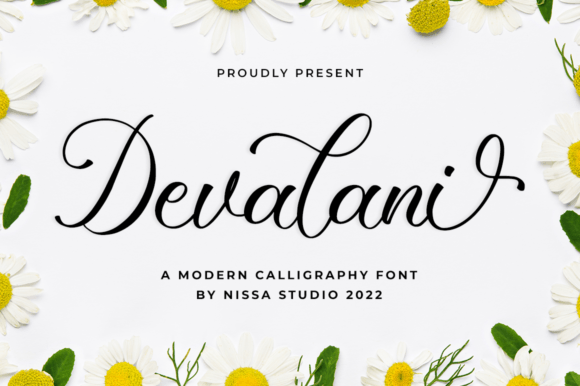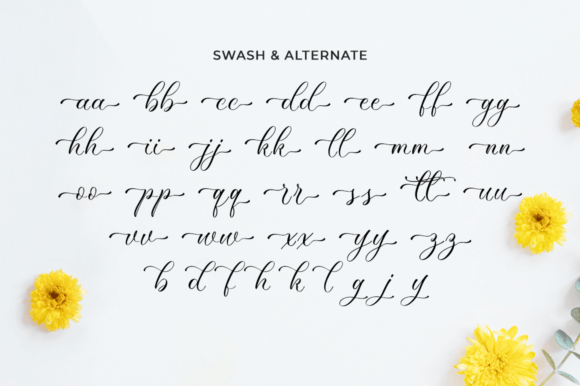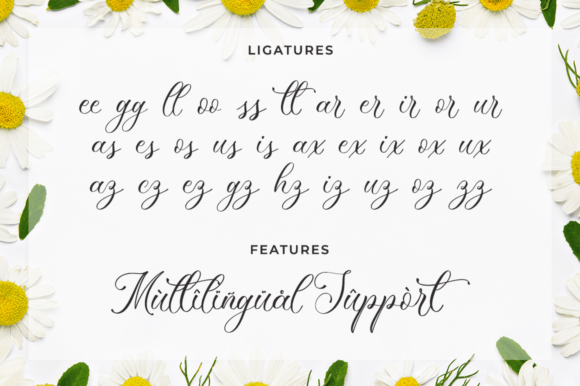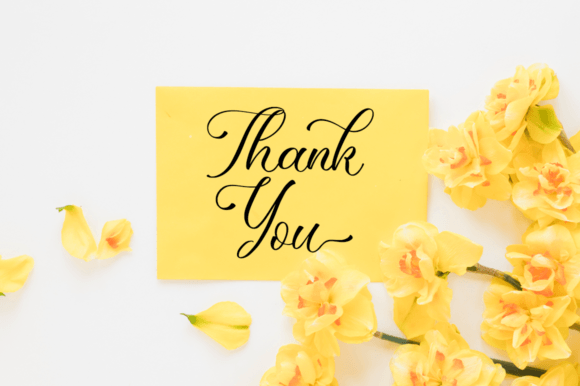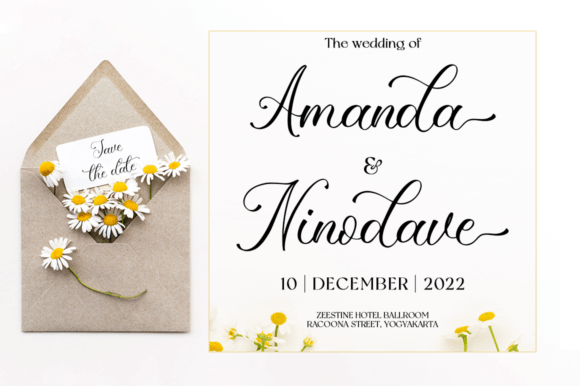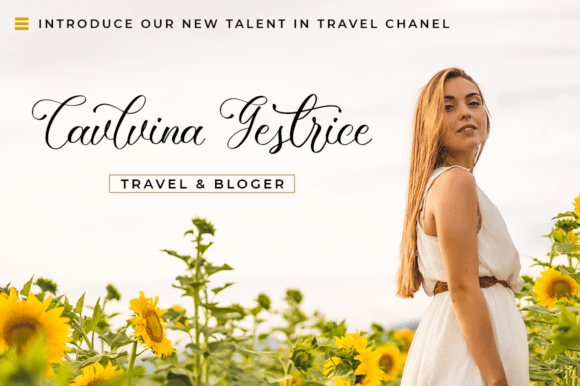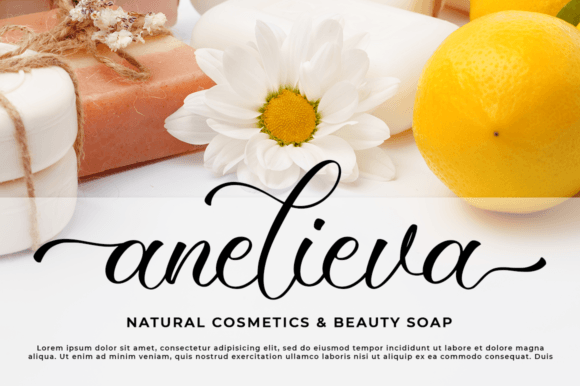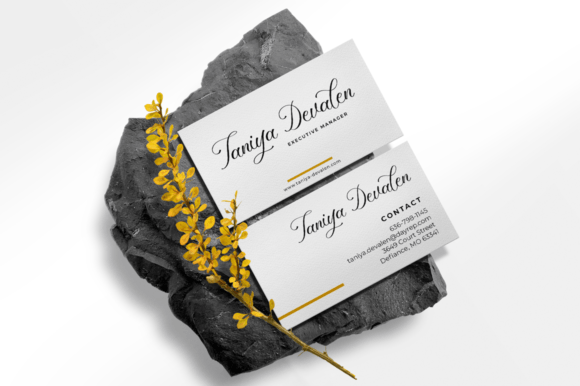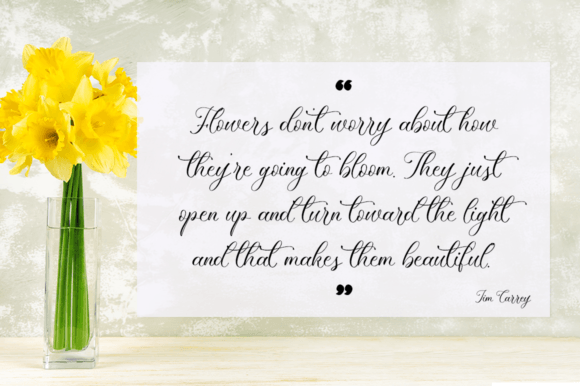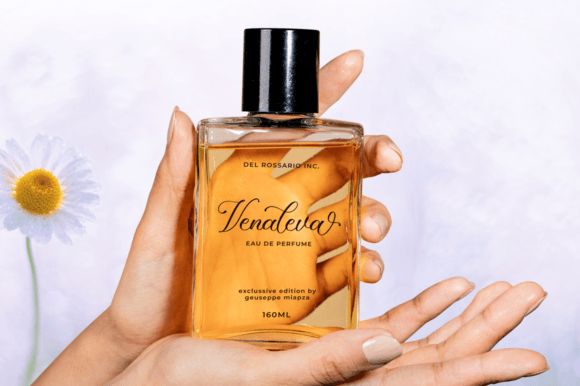
Devalani Font
About Devalani Font
“Devalani” is a truly elegant handwritten font that exudes beauty and distinction. With its gorgeous and distinct style, this font is a perfect choice for various design applications, including wedding invitations, thank you cards, quotes, greeting cards, logos, business cards, and any project that requires a personalized and refined touch. The font’s PUA encoding simplifies access to its numerous glyphs and swashes, providing you with a wealth of design possibilities with ease.
The charm of “Devalani” lies in its ability to infuse a sense of sophistication and uniqueness into your work. Its elegant handwritten script style adds an air of luxury and authenticity to your projects, ensuring they shine with a touch of refinement.
Whether you’re crafting exquisite wedding invitations, conveying heartfelt sentiments in greeting cards, or creating a distinct brand identity through logos and business cards, “Devalani” offers a versatile and visually stunning option. It allows you to convey your message with grace and elegance.
As you incorporate “Devalani” into your creative process, you’ll discover its remarkable ability to elevate your work, making it visually captivating and memorable. This font becomes an indispensable tool for designers seeking to create designs that leave a lasting impression with a touch of personalized beauty.
In summary, “Devalani” is an elegant handwritten font that excels in adding refinement and distinction to a wide range of design projects. Its versatility, combined with PUA encoding, ensures you have the creative freedom to incorporate intricate design elements effortlessly. Allow “Devalani” to be your creative choice, and watch how it enhances your designs, ensuring they radiate with sophistication and personalized charm while leaving a lasting and refined impression.